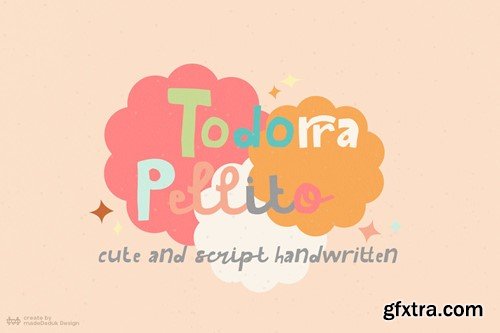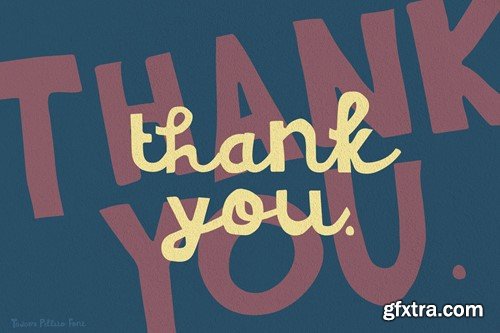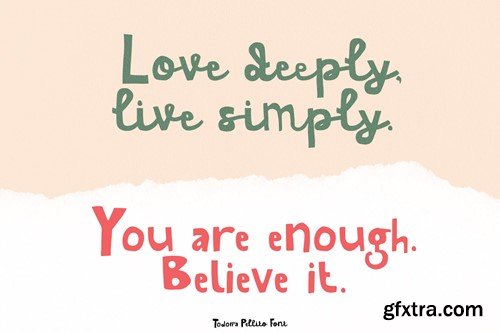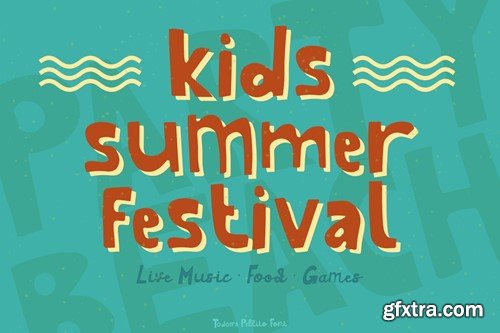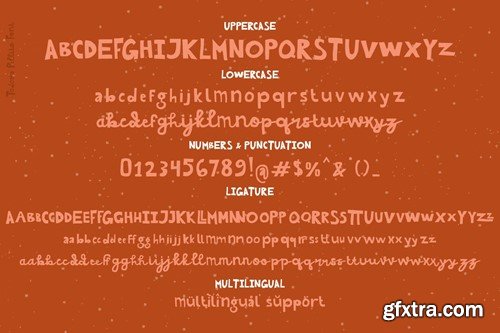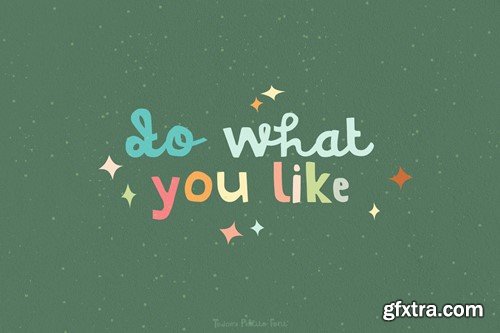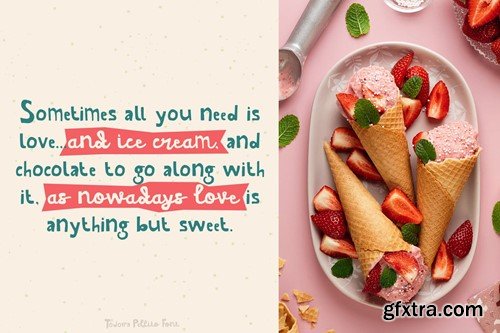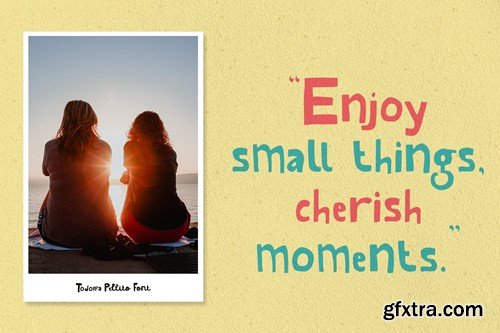
Todorra Pellito Font 5NG5QE2
Todorra Pellito Font
Todorra Pellito is a cute font with a matching script and regular and will makes this font suitable for your any project design.
Feature
• Number & Symbol
• International Glyphs
• Multilingual support
• Ligature